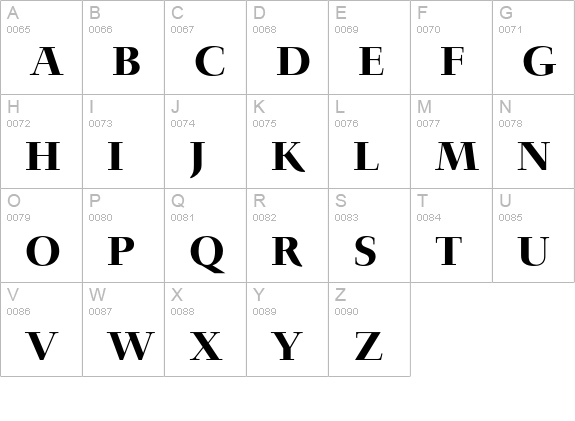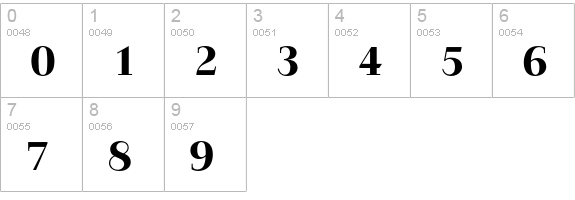
Jaeger-Antiqua Medium Font Details
Jaeger-Antiqua Medium is a balanced, medium-weight variant in the Jaeger typeface family \xE2\x80\x94 well suited to sub-headlines, navigation, and balanced editorial work.
Jaeger-Antiqua Medium is an exquisite font that exudes elegance and sophistication. Its timeless design, with its perfectly balanced letterforms and graceful curves, makes it the perfect choice for a wide range of design projects. Whether you are creating stunning logos, elegant invitations, or sophisticated branding materials, Jaeger-Antiqua Medium will add a touch of class to your creations. With its medium weight, this font strikes the perfect balance between being bold enough to make a statement and being light enough to maintain readability. Its versatility allows it to be used in both headlines and body text, making it a truly versatile typeface. One of the most remarkable aspects of Jaeger-Antiqua Medium is that it is free. That's right, you can download this fantastic font for absolutely no cost at FontsMarket.com. This means that you can enjoy the beauty and quality of Jaeger-Antiqua Medium without any financial constraints. It's a rare opportunity to have access to such a high-quality font for free, so be sure to take advantage of this offer. Whether you are a professional designer, a student, or simply someone with a passion for typography, Jaeger-Antiqua Medium is a must-have addition to your font collection. Its classic yet contemporary design will bring a touch of sophistication to any project. So don't miss out on this amazing opportunity to download Jaeger-Antiqua Medium for free at FontsMarket.com and elevate your designs to a whole new level.